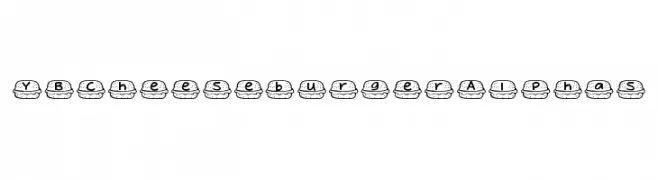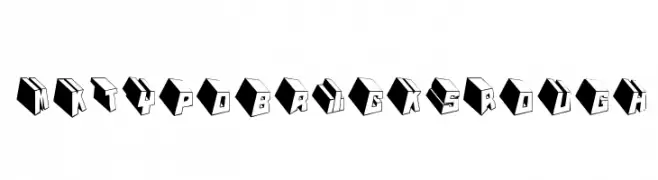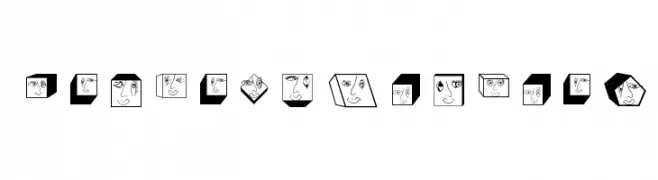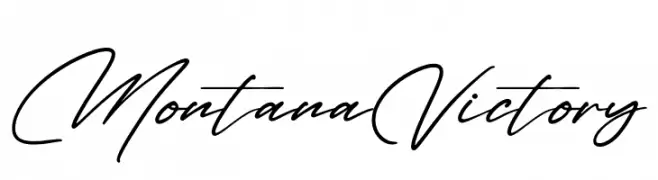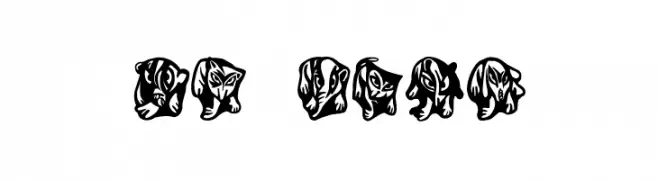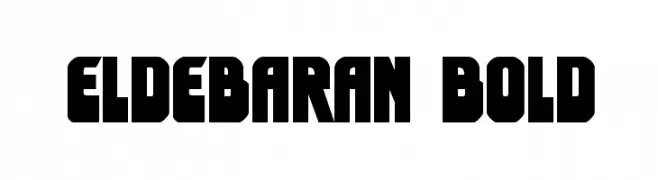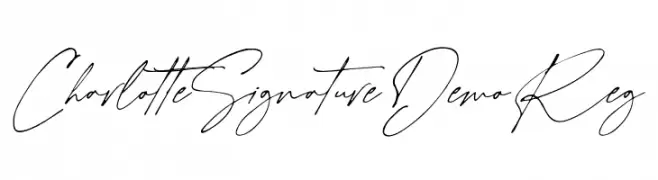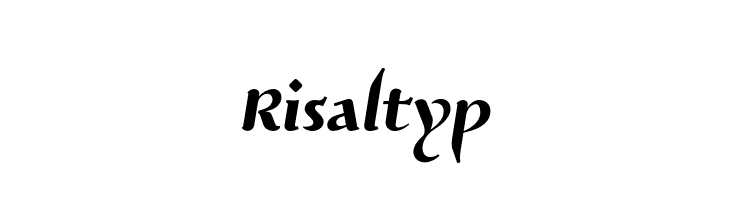
A bold, playful font with irregular shapes and thick strokes.
A collection of artistic symbols, not a functional font.
A bold, 3D block-style font with a shadow effect and geometric shapes.
A decorative font with geometric shapes and abstract faces inside each character.
A graceful, cursive script font with a natural handwriting style.
A highly decorative and artistic font with intricate, swirling patterns.
A bold, geometric font with a futuristic and impactful design.
A sophisticated handwritten font with fluid, cursive strokes and elegant character connections.
A casual, textured handwritten font with a playful and informal style.